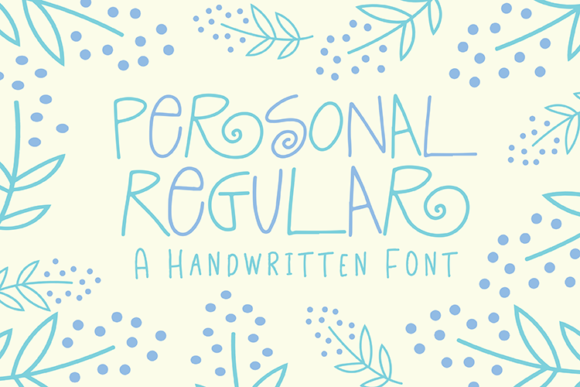
Journey into a world of delightful lettering with Personal Regular, a captivating handwritten font crafted to ignite your creativity. Its enchanting strokes evoke a sense of warmth and playfulness, adding a personal touch to your projects. Designed to elevate your ideas, Personal Regular is the perfect companion for crafting heartfelt messages, unique branding, and whimsical designs. Let your imagination soar as you explore the endless possibilities of this charming script.
Personal Regular's enchanting style is a sight to behold. Its characters dance across the page, each letter a stroke of artistry. The font's curves and flourishes lend an air of elegance and sophistication, making it an ideal choice for invitations, greeting cards, and personal branding. Whether you're a seasoned designer or just starting, Personal Regular will add a touch of magic to your creations, transforming them into works of art.
But Personal Regular's magic extends beyond aesthetics. Its versatility knows no bounds. Whether you're designing a whimsical comic, creating a heartfelt greeting card, or crafting an eye-catching logo, Personal Regular effortlessly adapts to your vision. Its ability to capture the essence of your message makes it an invaluable tool for any creative endeavor.
So, embrace the allure of Personal Regular and let your creativity flourish. Discover a world of storytelling and self-expression as you weave your words into captivating designs. With Personal Regular as your muse, your projects will resonate with a touch of whimsy and a sprinkle of delight. Let your imagination take flight and experience the joy of creating with Personal Regular today!